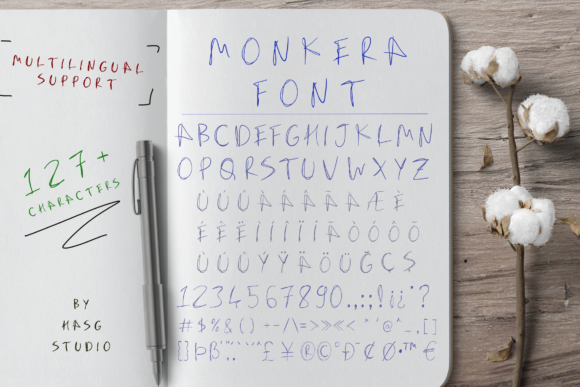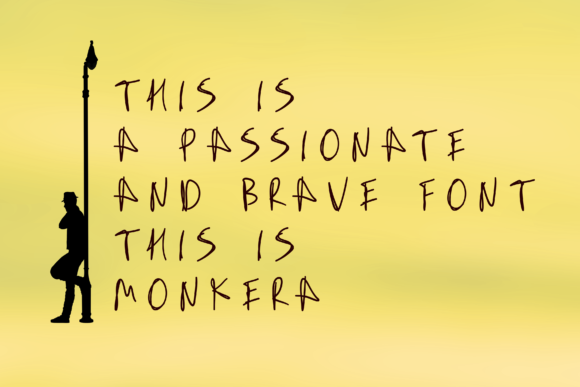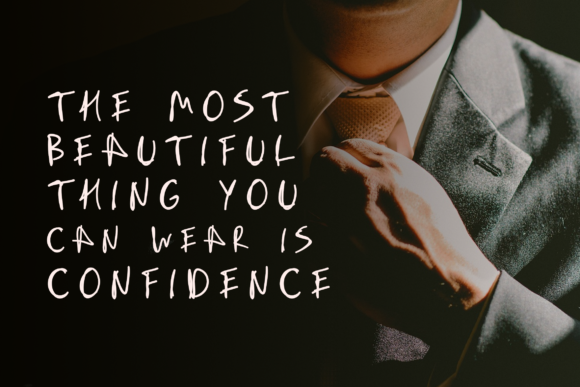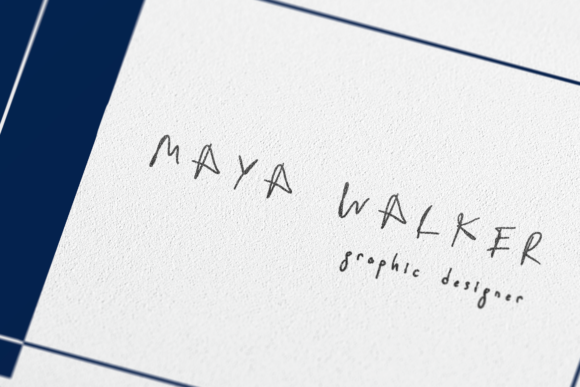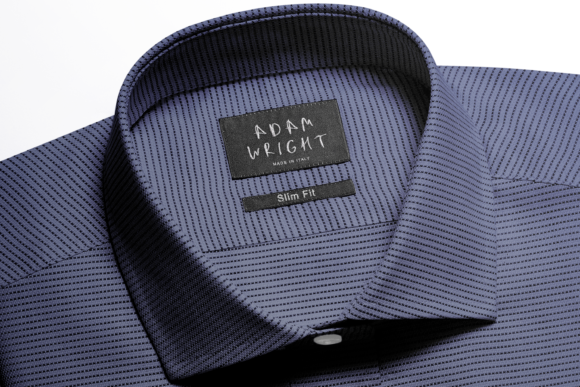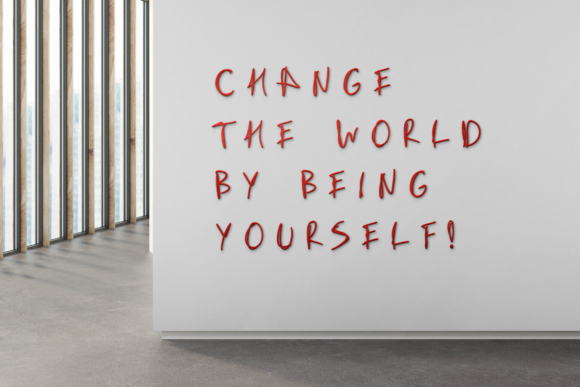
Introduction to Monkera Font
Monkera is a simple and clean handwritten font.
Why Choose Monkera Font?
Monkera Font offers exceptional quality and versatility, making it a valuable addition to your design toolkit. Whether you’re creating for personal projects or commercial use, Monkera Font delivers professional results.